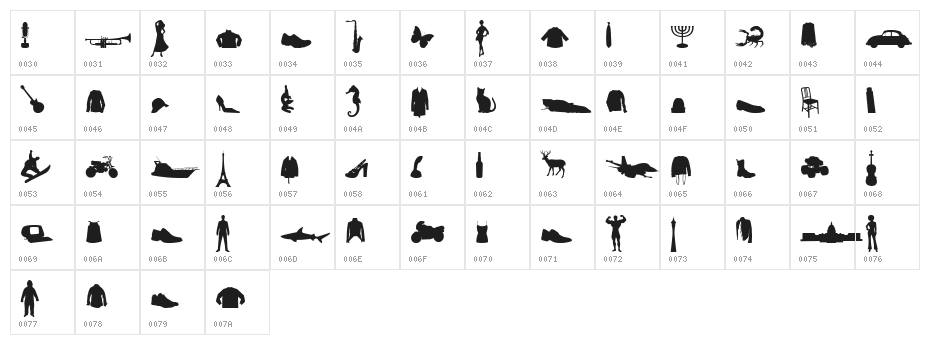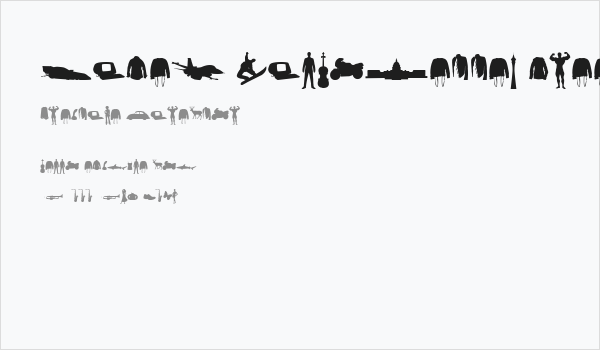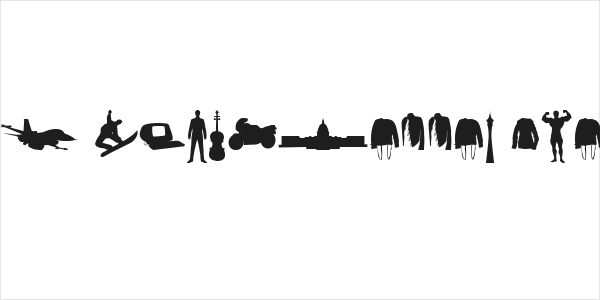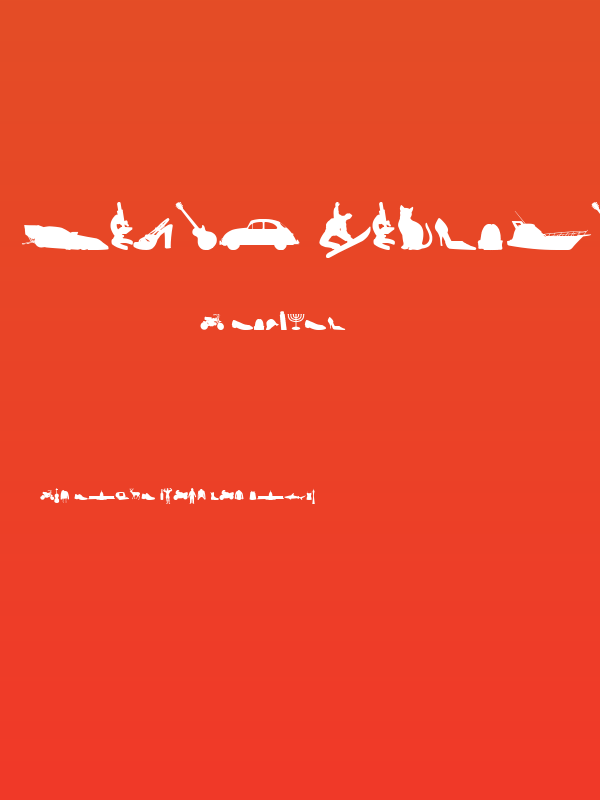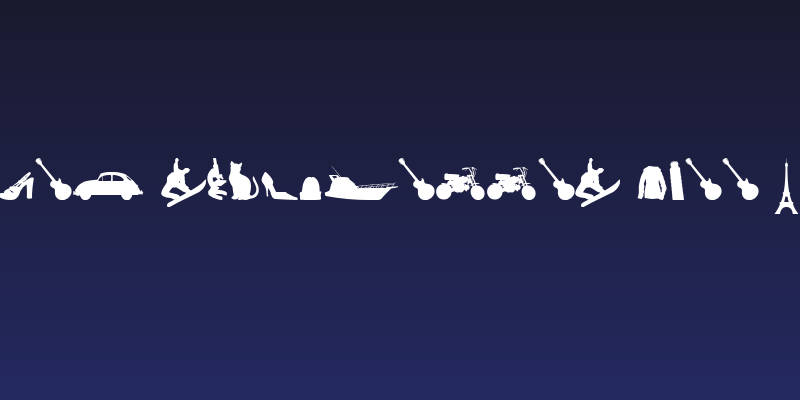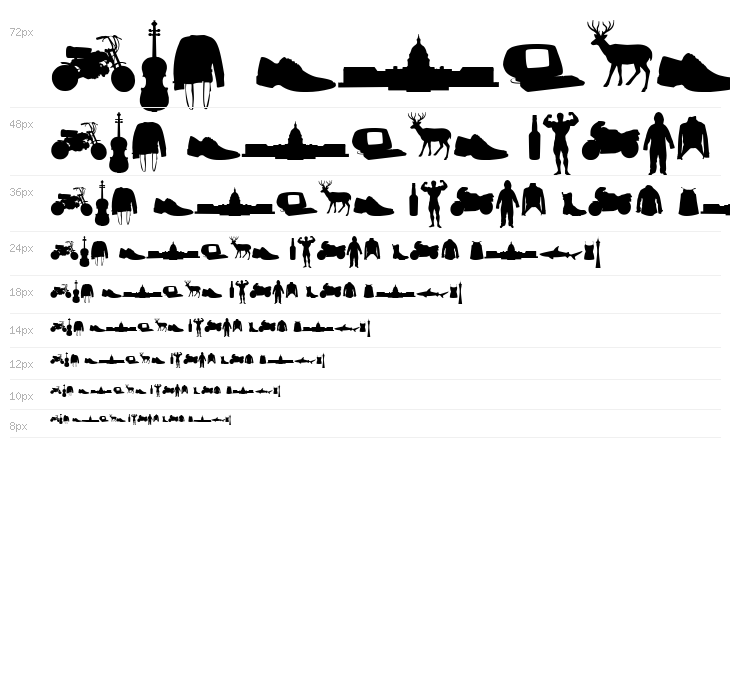
Mixed Silhouettes Free vol 2 Font
Mixed Silhouettes Free vol 2 Description
A collection of diverse black silhouettes representing objects, animals, people, landmarks, and instruments, each with a bold, solid fill and no internal detail. The shapes are highly simplified and easily recognizable, designed for visual impact rather than typographic use.
| Overall Style | Decorative, Playful, Modern |
| Use Case | Icons, Illustrations, Decorative elements |
| Proposed Projects | Posters, educational materials, icon sets, infographics, creative collages, and visual storytelling. |